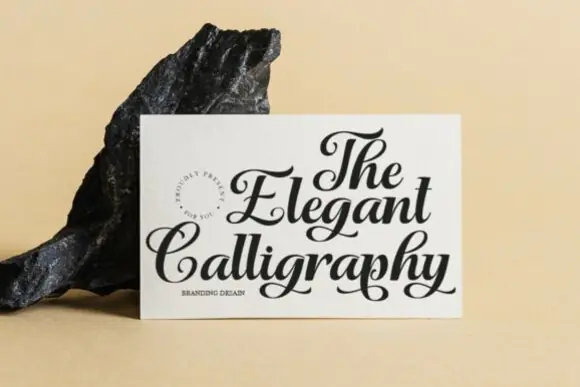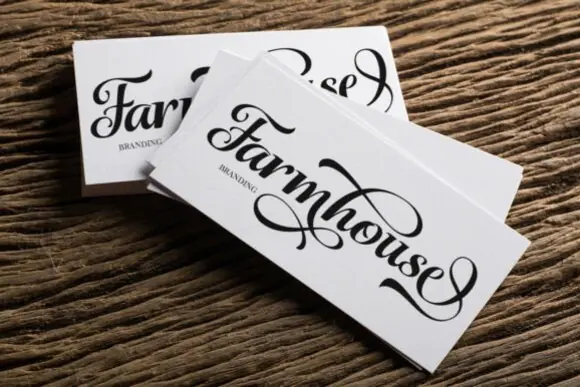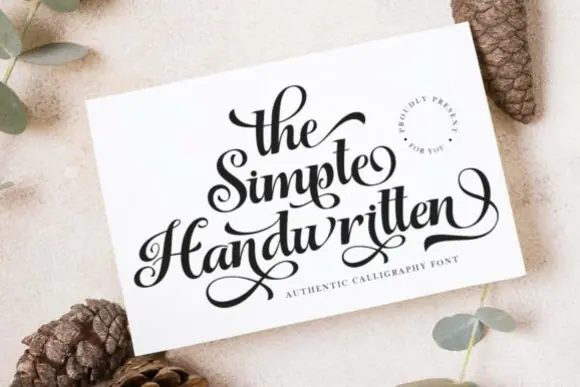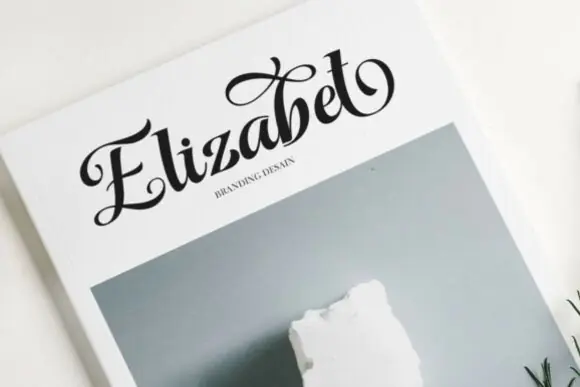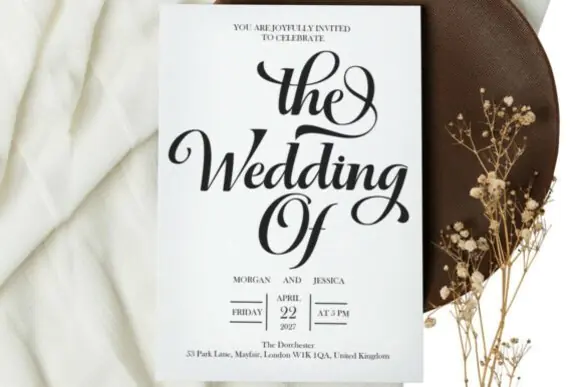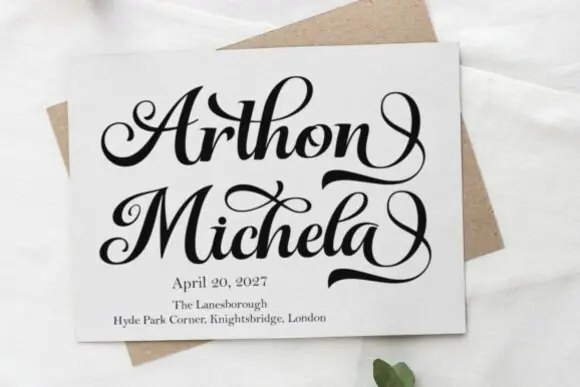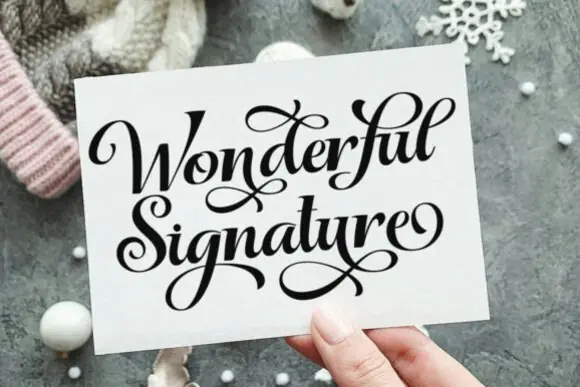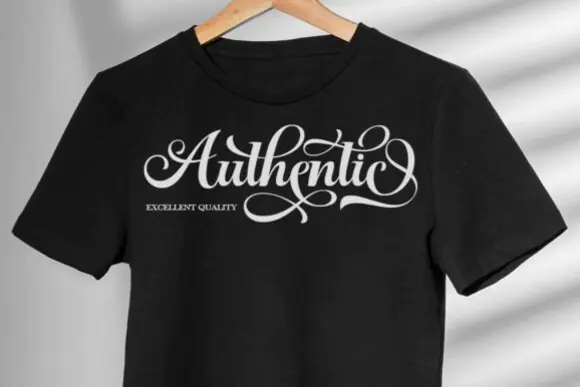
Create timeless, graceful, and luxurious designs with Authentic Calligraphy Font, a refined script typeface inspired by traditional penmanship and elegant handwritten lettering. With sweeping curves, dramatic flourishes, high-contrast strokes, and a personal handcrafted feel, this font is perfect for projects that need a premium and sophisticated look.
Authentic Calligraphy captures the fluid motion of classic calligraphy, making it ideal for turning names, titles, quotes, and brand text into beautiful decorative artwork. Its ornate style works especially well for high-end wedding stationery, romantic branding, premium wine labels, luxury packaging, elegant invitations, greeting cards, boutique logos, product labels, and stylish editorial designs.
This font includes beautiful glyphs, swashes, and alternate characters, giving you creative flexibility for elegant headlines and decorative typography. It is also PUA encoded, allowing easy access to special characters and stylistic alternates.
Authentic, calligraphy, handwritten, luxury, elegant, romantic, ornate, decorative, traditional, graceful, sophisticated, high-contrast, dramatic, and timeless.
Use Authentic Calligraphy Font to add a beautiful handwritten luxury feel to your designs and create typography that looks personal, artistic, and professionally crafted.